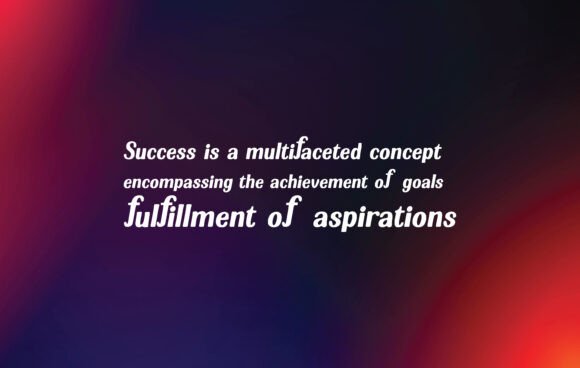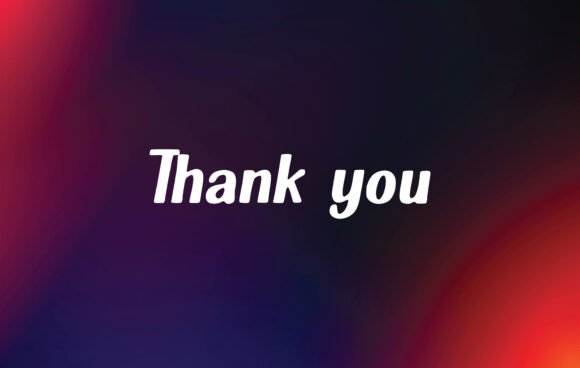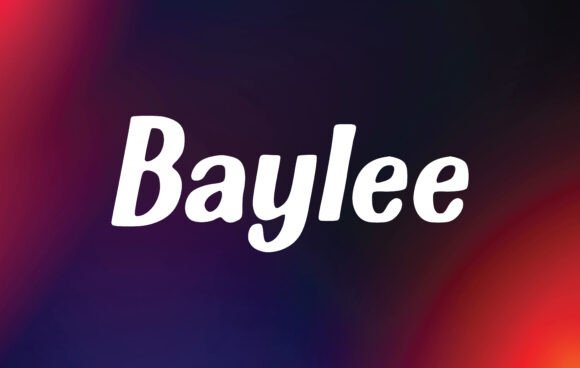
Introducing Baylee Font: The Epitome of Warmth and Friendliness in Typography
In the vast universe of typography, where fonts are the voice of visual communication, Baylee Font emerges as a beacon of warmth and approachability. This soft and rounded sans serif font is meticulously designed to infuse any design project with a sense of friendliness and modernity. Whether you’re a designer, a crafty DIY enthusiast, or a business owner looking to brand your venture, Baylee Font is poised to become your go-to typeface for creating welcoming and versatile designs.
The Essence of Baylee Font
Baylee Font is characterized by its clean, modern curves that effortlessly convey a sense of warmth and approachability. Unlike traditional sans serif fonts that can sometimes feel cold or distant, Baylee strikes a perfect balance between modernity and coziness. Its rounded edges and smooth lines make it not only pleasing to the eye but also highly legible across various mediums, from digital screens to print materials.
Ideal Applications for Baylee Font
The versatility of Baylee Font makes it suitable for a wide array of design applications. Here are some areas where Baylee truly shines:
- Branding: For businesses looking to establish a friendly and approachable brand identity, Baylee Font can be a game-changer. Its warm and inviting aesthetic helps in creating a strong emotional connection with your audience.
- Social Media: In the realm of social media, where content is king and engagement is paramount, Baylee Font can help your posts and stories stand out. Its modern yet friendly vibe is perfect for captivating your followers.
- Packaging: For product packaging, Baylee offers a fresh and appealing look that can make your products more noticeable on crowded shelves. Its clean and rounded design can convey a sense of care and attention to detail.
- General Design Projects: Beyond specific applications, Baylee Font’s versatility means it can be used in a myriad of design projects, from websites and blogs to posters and flyers, anywhere a warm and modern typeface is desired.
Why Choose Baylee Font?
Choosing a font for your design project can be a daunting task, given the multitude of options available. However, Baylee Font offers several unique advantages:
- Legibility: Baylee’s design prioritizes readability, ensuring your message is conveyed clearly and effectively.
- Emotional Connection: Its friendly and approachable nature helps in creating a positive emotional response from your audience.
- Versatility: Baylee Font can adapt to various design styles and themes, making it a valuable asset in your typography arsenal.
- Modern Aesthetic: With its clean lines and rounded edges, Baylee brings a contemporary feel to your designs, keeping them fresh and relevant.
Baylee Font stands out in the typography world for its unique blend of warmth, friendliness, and modernity. Its design caters to the needs of designers and crafters looking for a typeface that can add a welcoming touch to their projects. Whether you’re aiming to enhance your brand’s image, create engaging social media content, or design eye-catching packaging, Baylee Font is an excellent choice. Embrace Baylee Font in your next design venture and experience the power of typography in creating meaningful connections with your audience.
Discover the potential of Baylee Font today and let its soft, approachable curves bring a new level of warmth and friendliness to your designs.